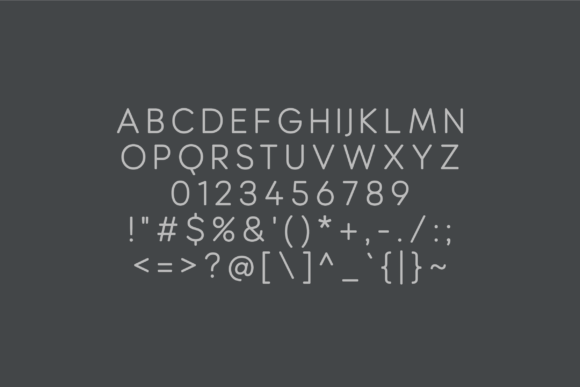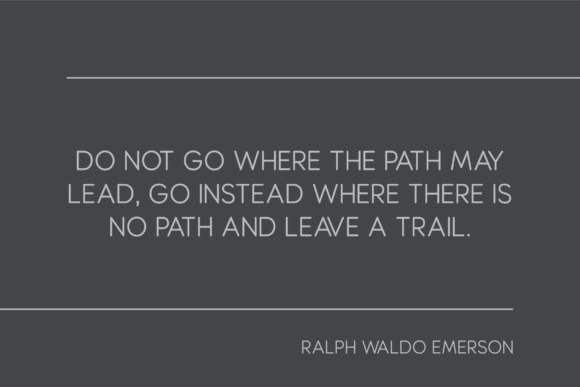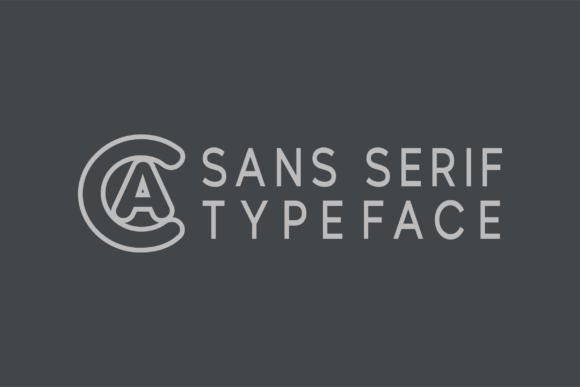
Experience the Elegance of Chrysanthos Font: A Contemporary Sans Serif Typeface
In the world of typography, a good font can make all the difference in the success of a design project. Whether you’re a designer, craftsperson, or simply someone who appreciates the art of beautiful writing, the Chrysanthos font is a typeface that is sure to impress. With its elegant and contemporary sans serif design, Chrysanthos effortlessly blends sophistication with functionality, making it a versatile choice for a wide range of applications.
Key Features of Chrysanthos Font
So, what makes Chrysanthos font stand out from the rest? Here are some of its key features:
- Uppercase Characters: Chrysanthos font features a range of beautiful uppercase characters that are perfect for creating eye-catching headlines, titles, and logos.
- Digits and Punctuation: The font includes digits from 0 to 9, as well as a versatile collection of punctuation and symbols, giving you everything you need to create professional-looking text.
- Contemporary Sans Serif Design: Chrysanthos boasts a sleek and modern sans serif design that is both elegant and highly legible.
Endless Design Possibilities with Chrysanthos
One of the best things about Chrysanthos font is its incredible versatility. Its adaptability makes it a go-to choice for a wide range of design projects, including:
- Logo Design: Create stunning logos that make a lasting impression with Chrysanthos font’s elegant and sophisticated design.
- Wedding Invitations: Add a touch of luxury and romance to your wedding invitations with this beautiful typeface.
- Quotes and Advertisements: Use Chrysanthos font to amplify the impact of your quotes and advertisements, making them more memorable and engaging.
- Print Materials: Transform your print materials, such as brochures, flyers, and posters, with the elegant and modern design of Chrysanthos font.
- Magazines: Accentuate the allure of your magazine with Chrysanthos font, making it a standout in any publication.
Why Choose Chrysanthos Font?
With so many fonts available, why choose Chrysanthos? Here are just a few reasons:
- Design Genius: Chrysanthos font is more than just a font – it’s a stroke of design genius! Its unique and elegant design makes it a cut above the rest.
- Imagination Unleashed: With Chrysanthos font, the possibilities are endless. Its versatility and range of features make it a canvas awaiting your imagination.
- Functionality and Sophistication: Chrysanthos font effortlessly blends functionality with sophistication, making it perfect for both designers and craftspersons.
Tips for Using Chrysanthos Font
To get the most out of Chrysanthos font, here are a few tips:
- Experiment with Sizes: Chrysanthos font looks great in a range of sizes, from large headlines to smaller body text.
- Play with Colors: The elegant design of Chrysanthos font lends itself well to a range of colors and textures, so don’t be afraid to get creative!
- Mix and Match: Combine Chrysanthos font with other fonts and design elements to create a unique and eye-catching design.
In conclusion, Chrysanthos font is a contemporary sans serif typeface that is sure to impress designers and craftspersons alike. With its elegant design, versatility, and range of features, it’s the perfect choice for a wide range of design projects. Whether you’re creating logos, wedding invitations, quotes, advertisements, print materials, or magazines, Chrysanthos font is a stroke of design genius that will help you bring your vision to life.